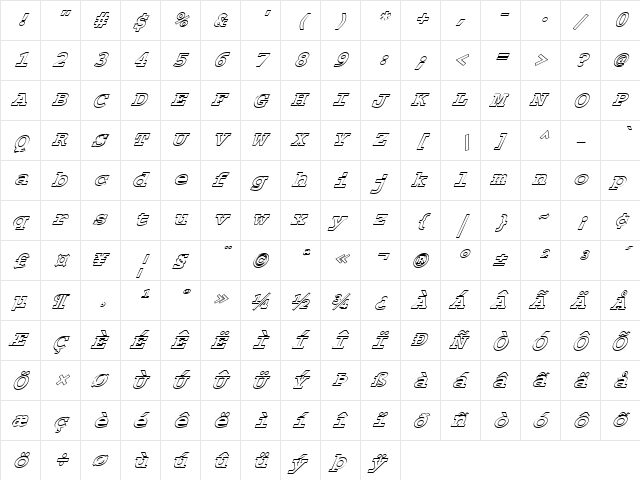
FZ BASIC 54 HOLLOW ITALIC Bold Font Preview
Design Context for FZ BASIC 54 HOLLOW ITALIC Typeface
FZ BASIC 54 HOLLOW ITALIC takes a measured approach to typography — its balanced proportions and neutral character make it a reliable workhorse for both digital and print work. The dynamic lean of this cut emphasises speed and emphasis in any layout. Its bold stroke weight gives it real presence on the page.